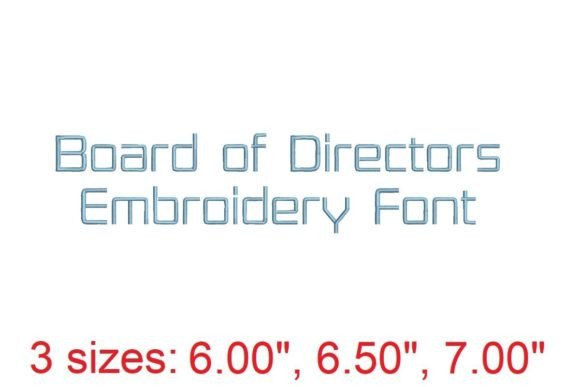
Board of Directors Embroidery Font
The Board of Directors Embroidery Font is a standout addition to any embroidery designer’s toolkit, especially for those crafting seasonal and holiday products. With its elegant and versatile style, this font offers a refined look that can elevate everything from back-to-school items to festive home decor. As someone who regularly creates handmade gifts and holiday-ready products, I was eager to test how this design would perform in real-world applications.
First Impressions: Seasonal Mood and Decorative Style
From the moment I viewed the Board of Directors Embroidery Font, I was struck by its sophisticated yet approachable aesthetic. The font has a clean, professional feel that evokes a sense of authority and class—perfect for holiday or family-themed projects. Its detail level is impressive, with crisp lines and subtle flourishes that add visual interest without overwhelming the design.
This font feels most at home in a modern, elegant setting. It could easily be used for personalized gifts, embroidered patches, or even corporate-style holiday items. While it may not be the best choice for something playful or rustic, it works beautifully for creating a premium look that appeals to a wide range of buyers.
Real-World Use in Holiday Selling Situations
As an Etsy seller and small shop product creator, I often think about how designs translate into marketable items. The Board of Directors Embroidery Font excels in several areas. For example, it’s ideal for sweatshirt embroidery, tote bag designs, and kitchen towel embroidery. The font’s size and structure make it easy to scale for different project types, whether you’re making a single gift or a bulk order for a craft fair.
It also shines in gift bundles and personalized gift setups. The font’s clarity makes it perfect for adding names, dates, or special messages on items like pillow covers or embroidered patches. When paired with appropriate thread colors, it can create a cohesive look that aligns with seasonal themes such as winter, Christmas, or even back-to-school.
For commercial embroidery projects, the Board of Directors Embroidery Font offers consistency and professionalism. It’s a great fit for businesses looking to maintain brand identity across various products. Whether you're creating limited edition apparel or holiday home decor, this font can help reinforce your brand’s image.
Where to Use with Caution
While the Board of Directors Embroidery Font is versatile, there are a few situations where extra care is needed. For instance, if you’re working with small hoop sizes, the font might be too large or complex to fit comfortably. Similarly, when using tiny lettering, the details may become lost or distorted.
Layered details can also be a challenge. If the design includes intricate elements, they may not stitch out cleanly on thick towels or dark fabrics. Metallic thread can sometimes cause issues with visibility, so it's important to test this before finalizing a product. Stretchy garments and curved caps may require additional stabilizer to ensure the design stays in place during use.
When working with dense stitch areas, the Board of Directors Embroidery Font can become heavy on the fabric. This is something to consider if you're planning to sell items that will be washed repeatedly. Always check the stitch density and adjust as needed to prevent puckering or distortion.
Impact on Seasonal Appeal and Buyer Emotion
The Board of Directors Embroidery Font has a strong visual presence that can enhance the appeal of any seasonal product. Its elegant style adds a touch of sophistication that can increase the perceived value of handmade gifts and personalized items. Buyers often associate well-designed embroidery with quality, which can help build trust and encourage repeat purchases.
During the holiday shopping season, this font can play a key role in attracting attention. Whether it's on a holiday ornament, a custom apron, or a branded patch, the font’s clarity and style make it instantly recognizable. This can lead to better engagement on social media previews and product mockups, helping to drive sales and customer interest.
For small business owners and crafters, the ability to create consistent, high-quality designs is essential. The Board of Directors Embroidery Font supports this by offering a reliable option that can be used across multiple product types. It helps maintain brand consistency while also allowing for creative flexibility in seasonal projects.
Practical Tips for Embroidery Designers
Before using the Board of Directors Embroidery Font in your own projects, there are a few practical steps to take. First, test different thread colors on both light and dark fabric to see how the font looks in various settings. This can help you choose the best options for your specific products.